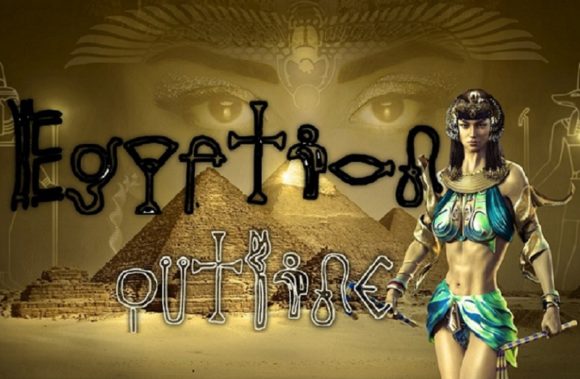
Unlock the Secrets of Ancient Egypt with Egyptian Outline Font:
Embark on a timeless journey to the land of the Pharaohs, where history and mystery intertwine. Egyptian Outline, a decorative font inspired by Ancient Egyptian hieroglyphics, invites you to express your creativity like never before.
Unleash the untapped power of ancient symbols, gracefully rendered in the sharp, commanding strokes of Egyptian Outline. This extraordinary font breathes life into your designs, captivating audiences with its enigmatic charm. Whether you're crafting logos, posters, website designs, or any project yearning for a touch of the extraordinary, Egyptian Outline will transport you to a realm of timeless beauty.
Step into the world of Ancient Egypt, where gods and goddesses whisper secrets to those who listen. Speak your message in the language of the pyramids, commanding attention with each stroke of Egyptian Outline. Embrace the legacy of a civilization that continues to inspire awe, and let your creations resonate with the power of hieroglyphs.
Imagine the possibilities as you weave tales of adventure, mystery, and intrigue. Create logos that evoke the grandeur of ancient architecture, design invitations that hint at hidden treasures, or compose documents that exude the wisdom of long-forgotten scribes. With Egyptian Outline, the boundaries of creativity dissolve, and you become a conduit for stories waiting to be told.
Immerse yourself in the beauty of hieroglyphics and let your imagination soar. Egyptian Outline is more than just a font; it's a gateway to a world where the past meets the present, and the ordinary transforms into the extraordinary.